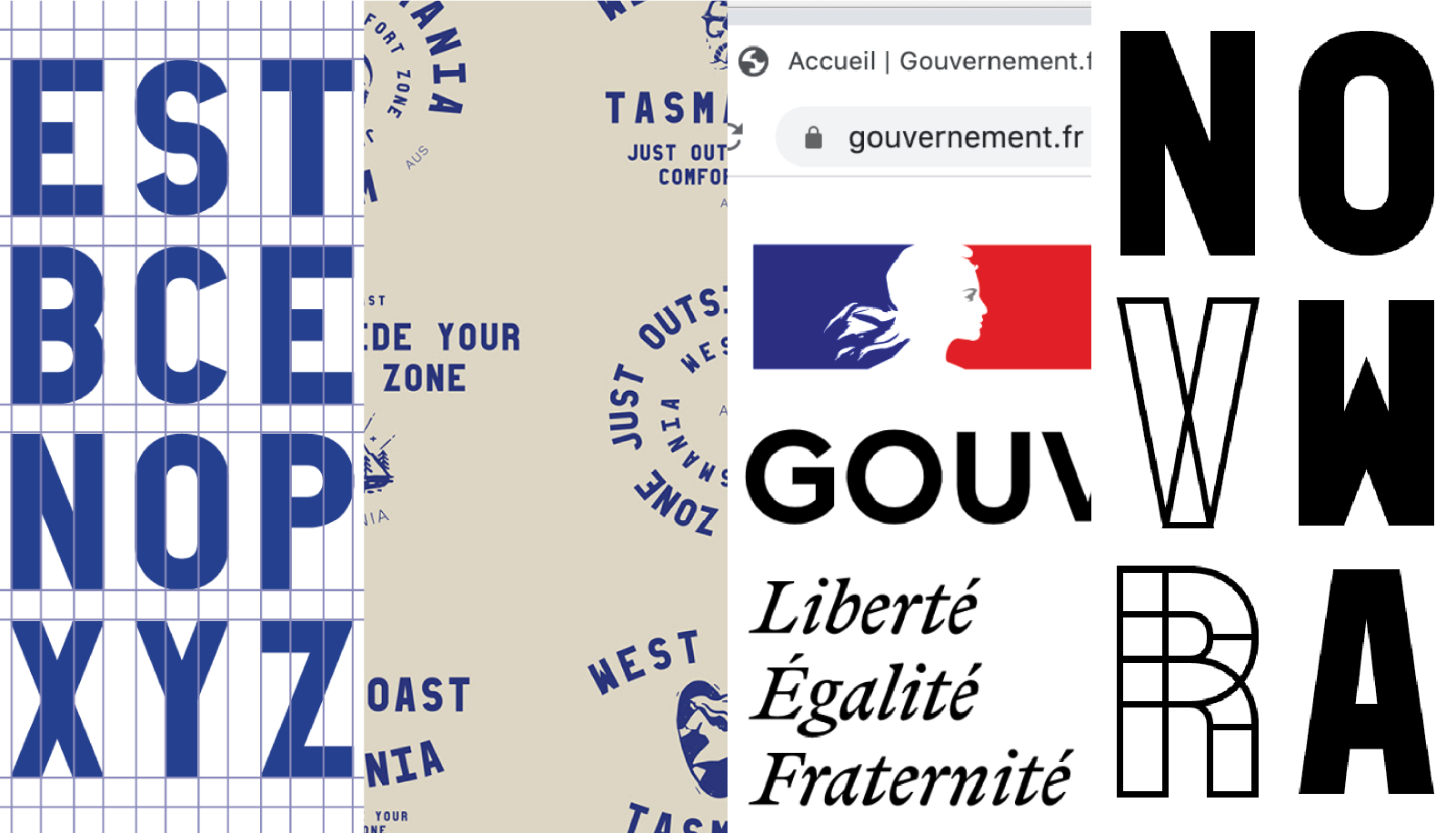
Talk: Mathieu Réguer
Read, write, build.
Alphabets, typography, clients, users, letters, lowercases, brief, distribution, availability, stencils, signage, literature, capitals, institutions, legibility, contrast, books, masks, counterforms, freedom, constraints, printing, collaboration, symbols, triplexing, consistency, poetry, French fries, proofs, flags, handwriting, serifs, systems… Through a series of case studies, Mathieu will explore the challenges of custom type design, likely providing little answers, hopefully raising many questions.